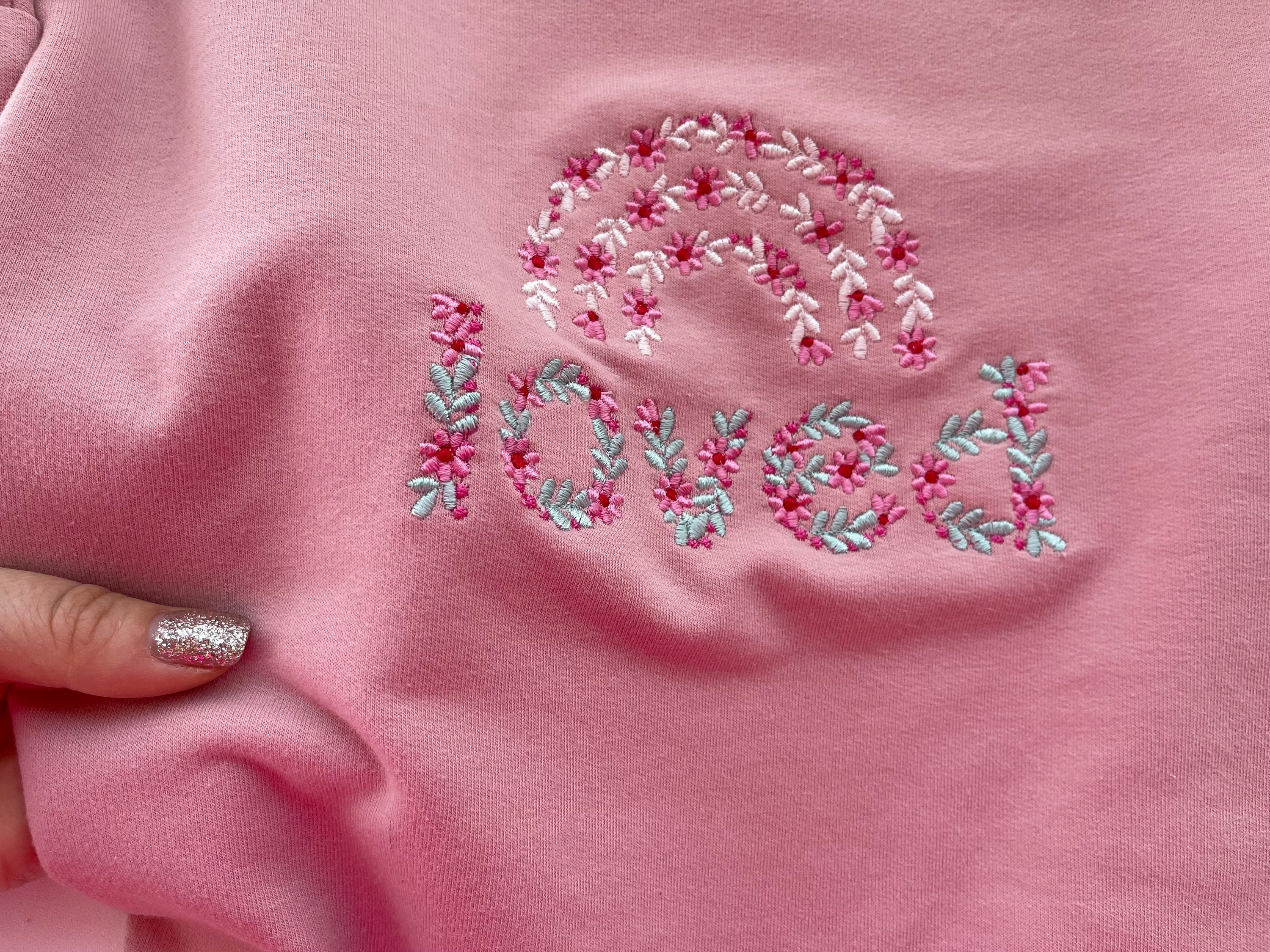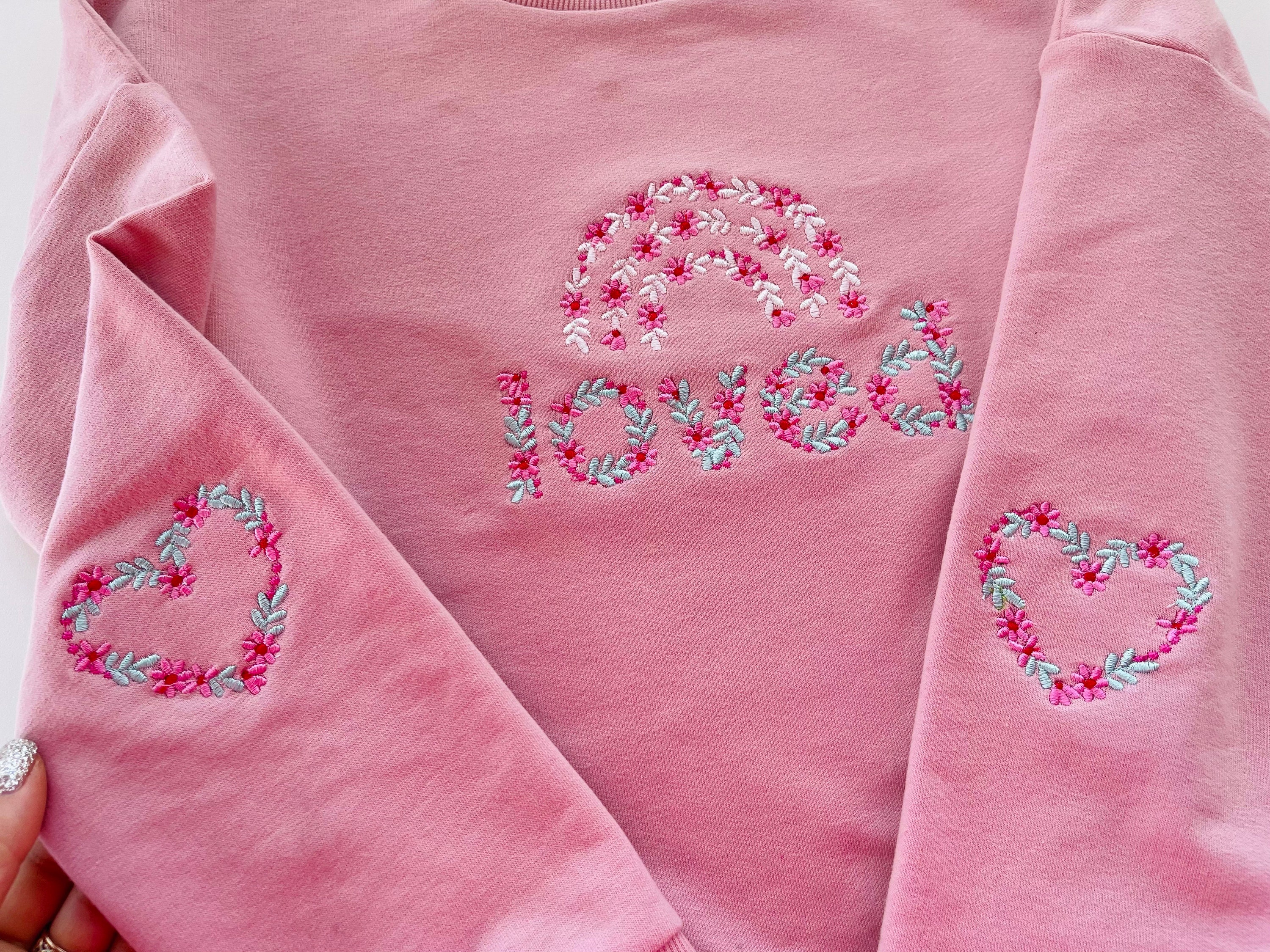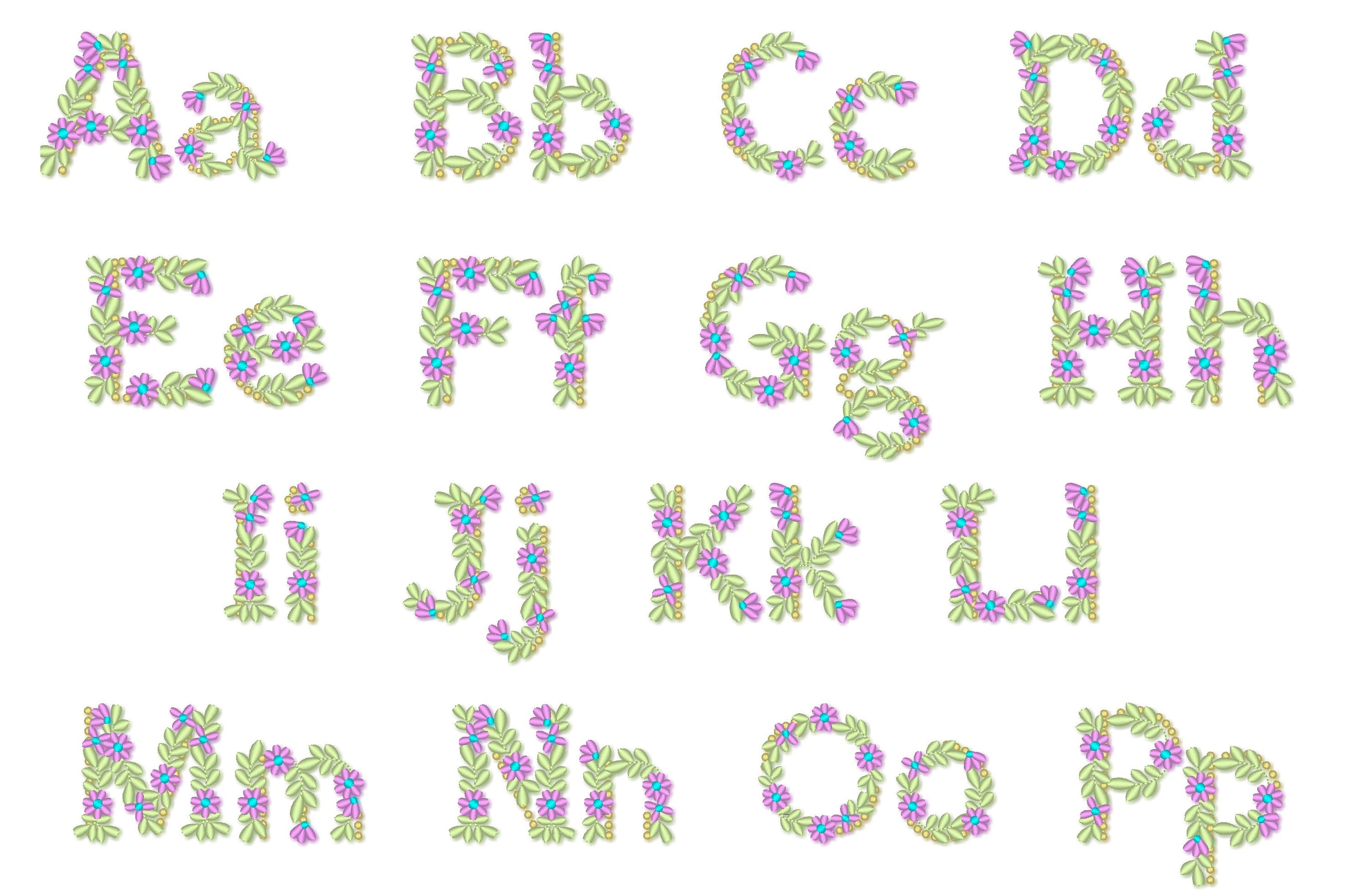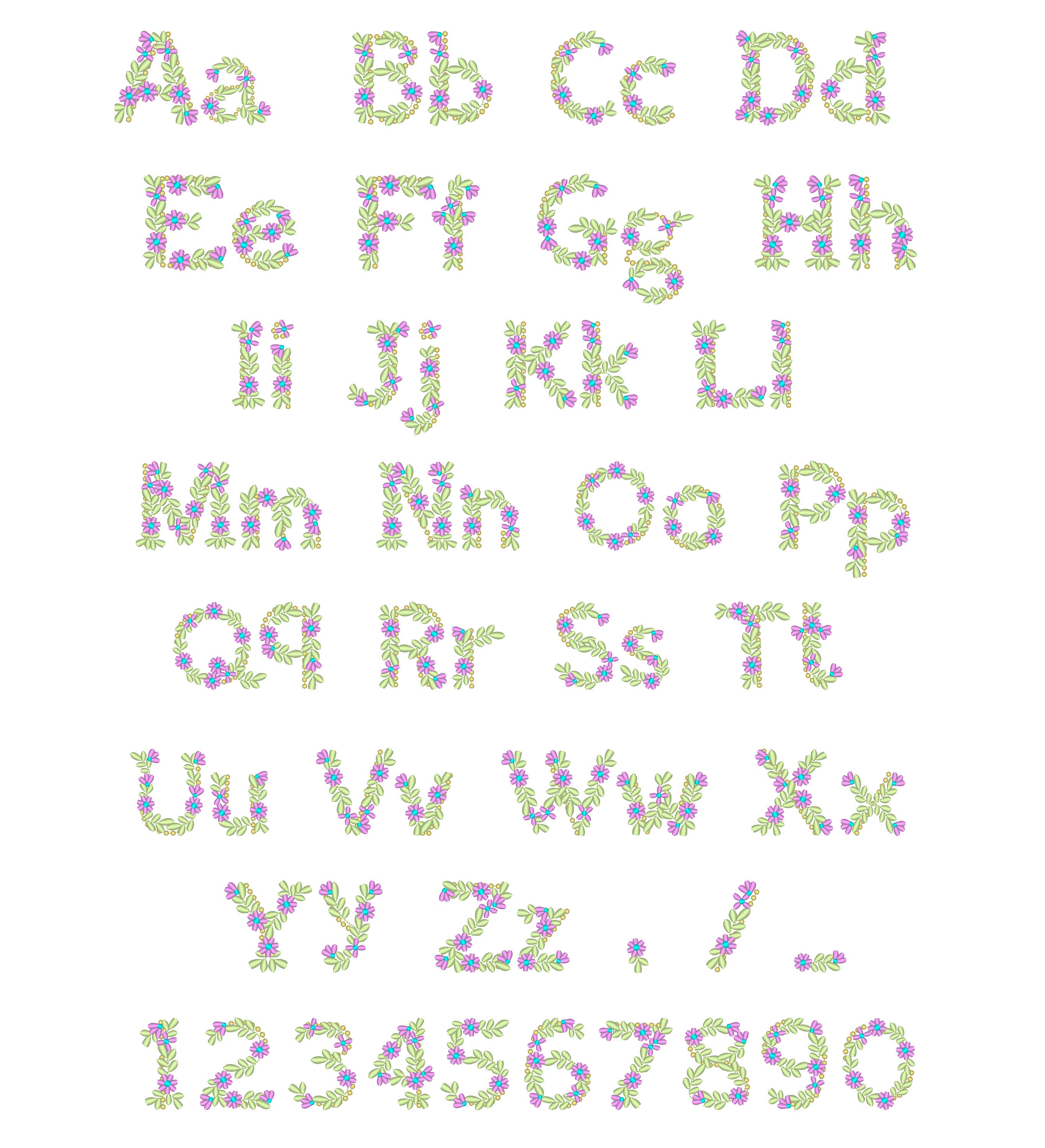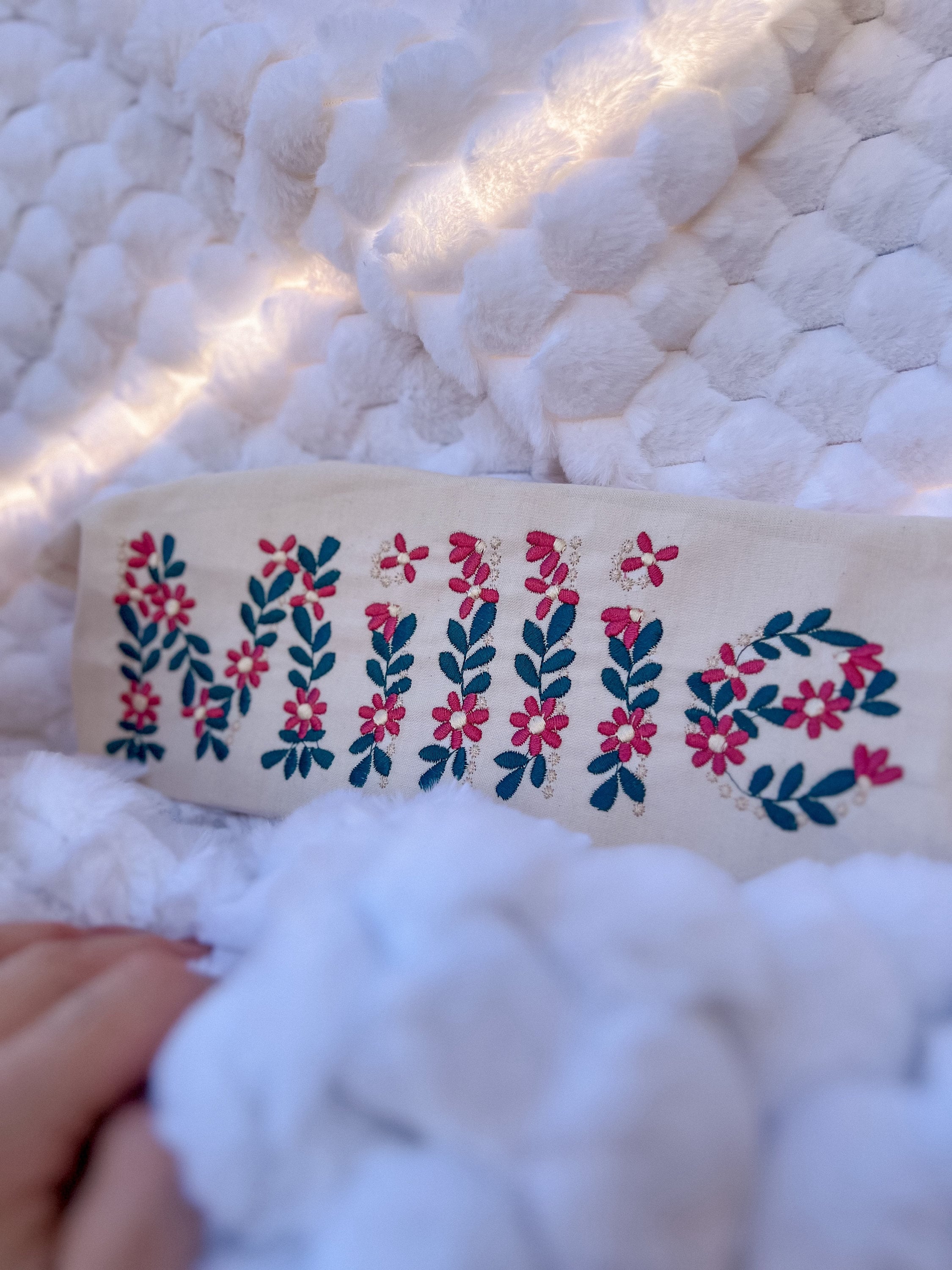
Spring Floral Font Flowered alphabet uppercase lowercase letters numbers machine embroidery designs BX font for kids MINI font from 1.5"
Letters Aa - Zz
Numbers 0 - 9
Punctuation
Included add-on floral Heart in the same folder.
Count of stitches for the uppercase letter "A"
1.5" - 3.188 stitches
1.7" - 3.677 stitches
2" - 4.269 stitches
2.5" - 5.131 stitches